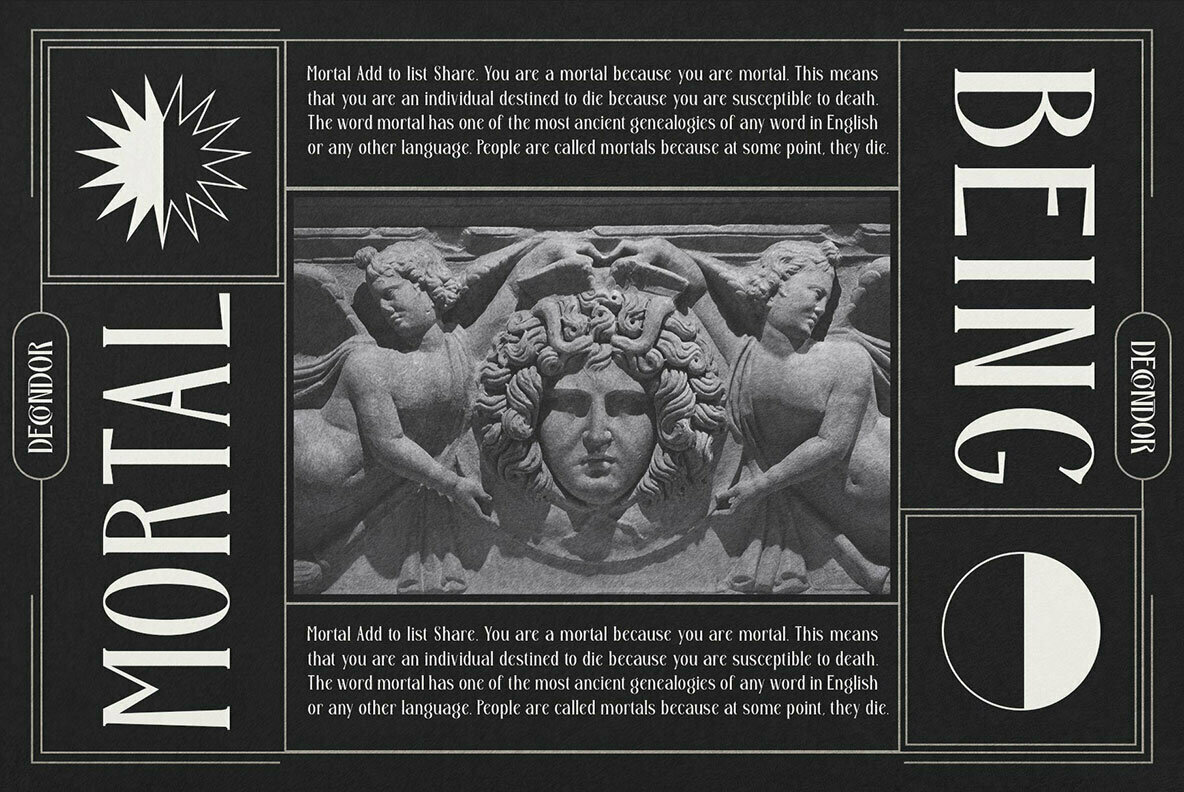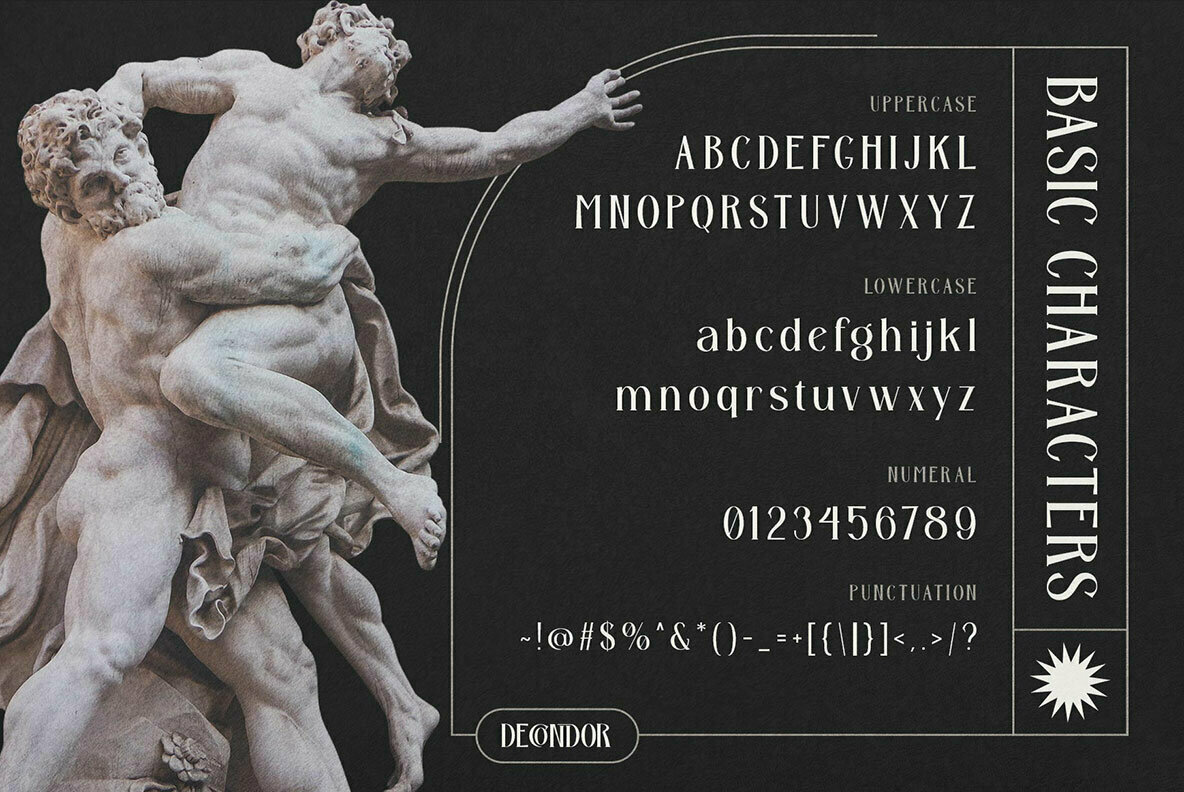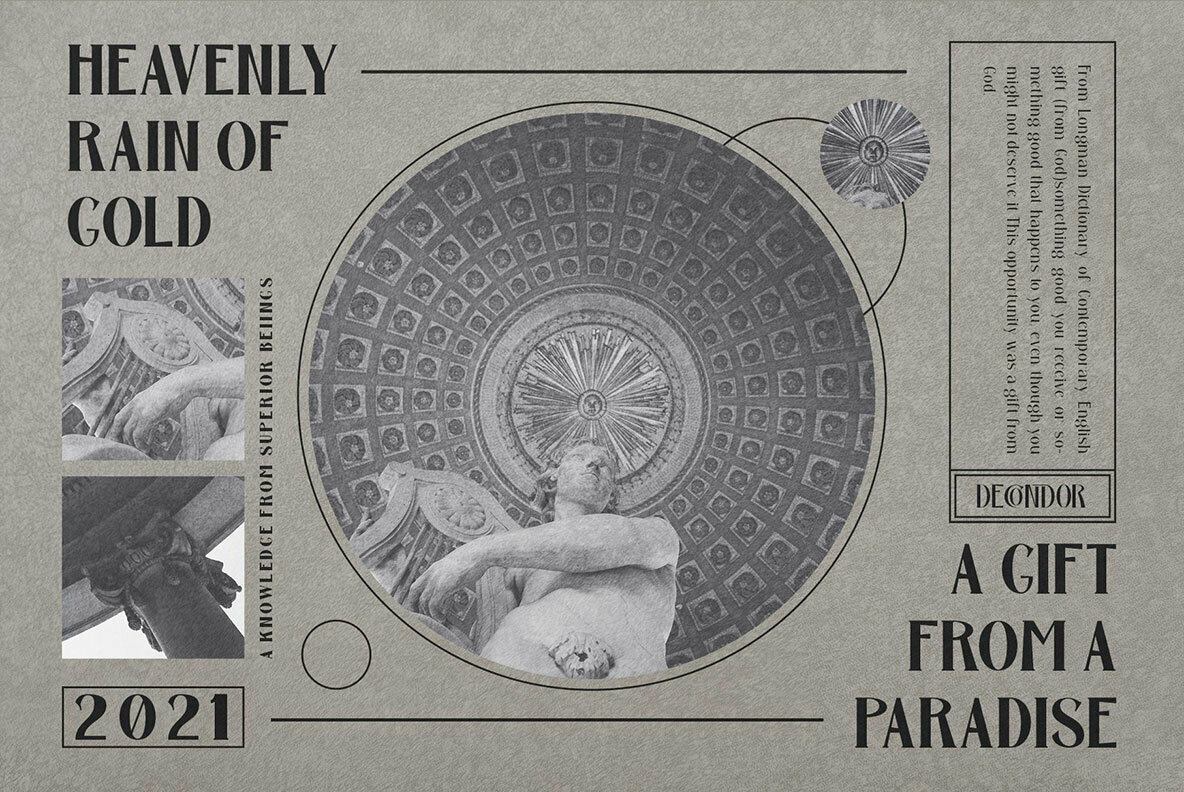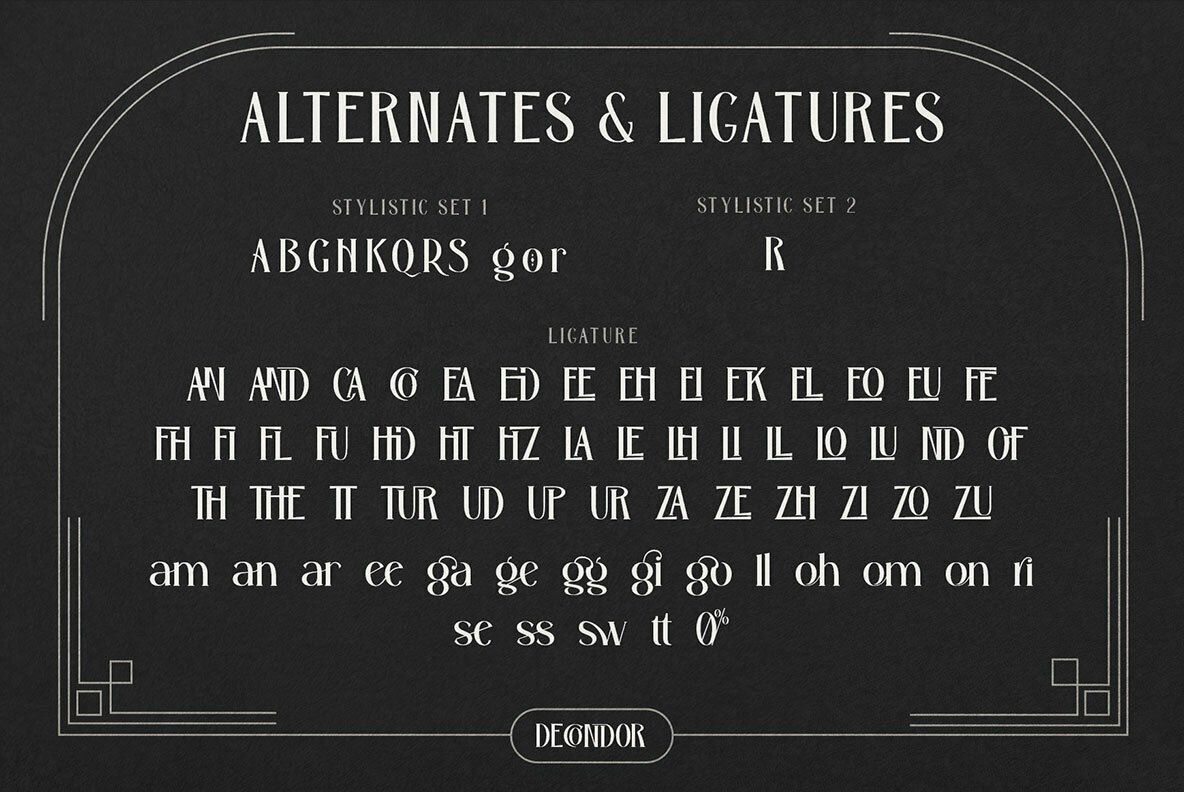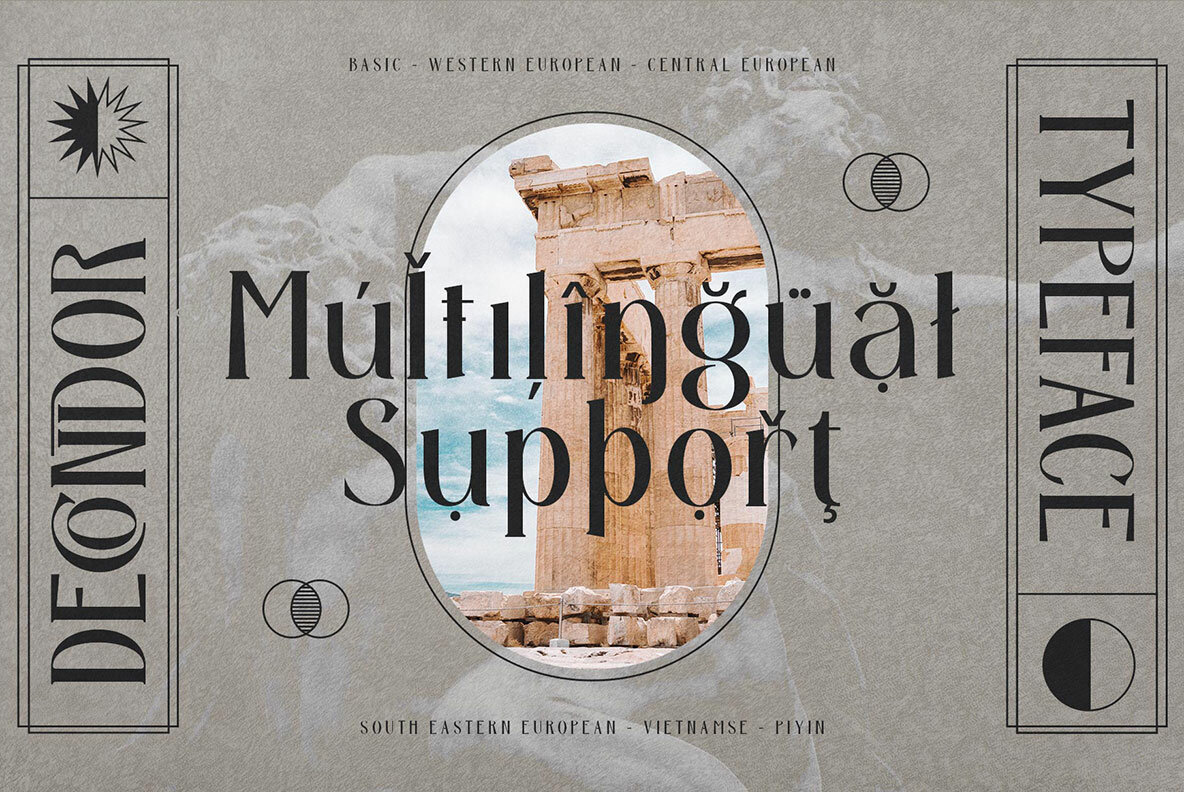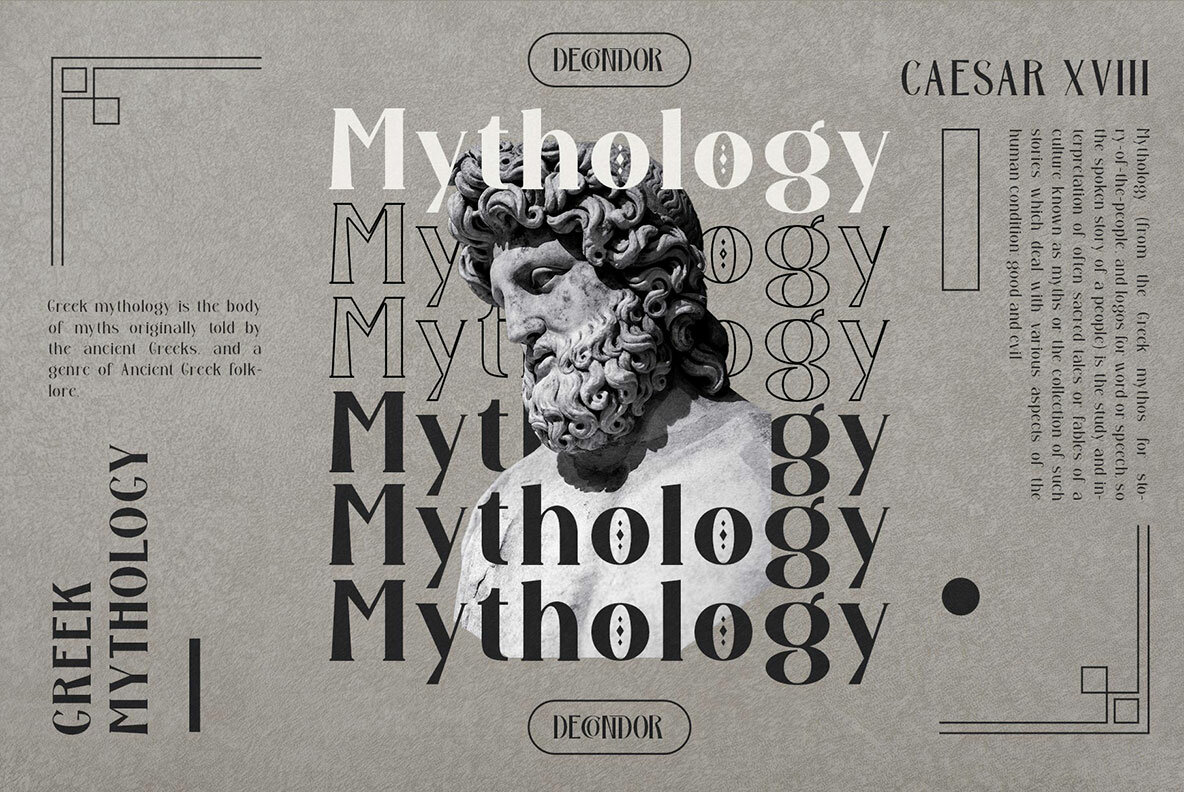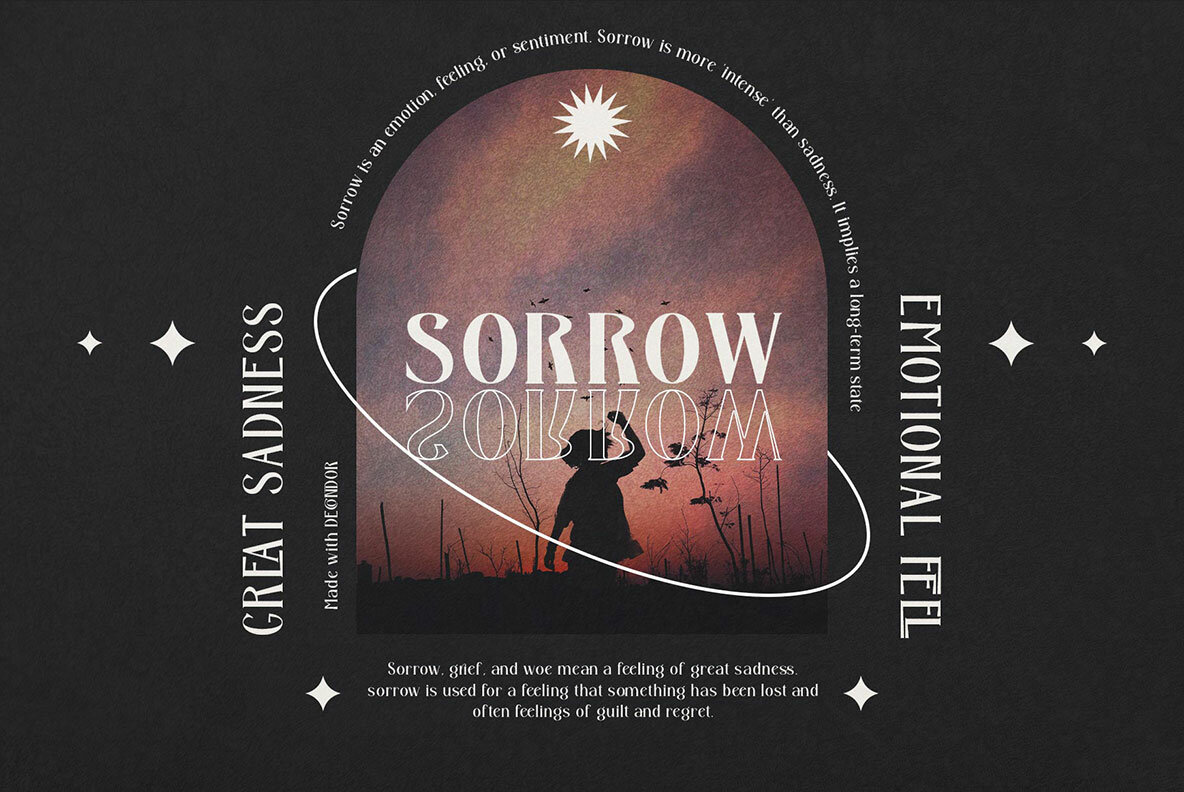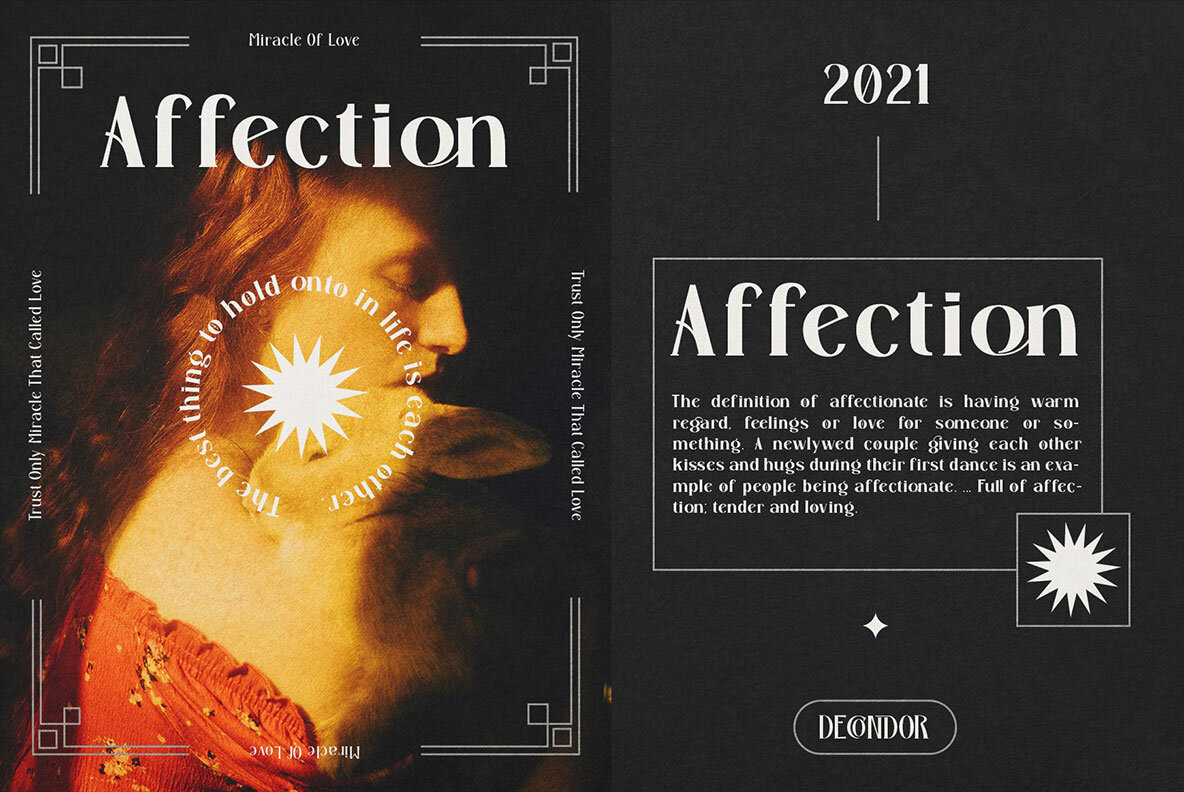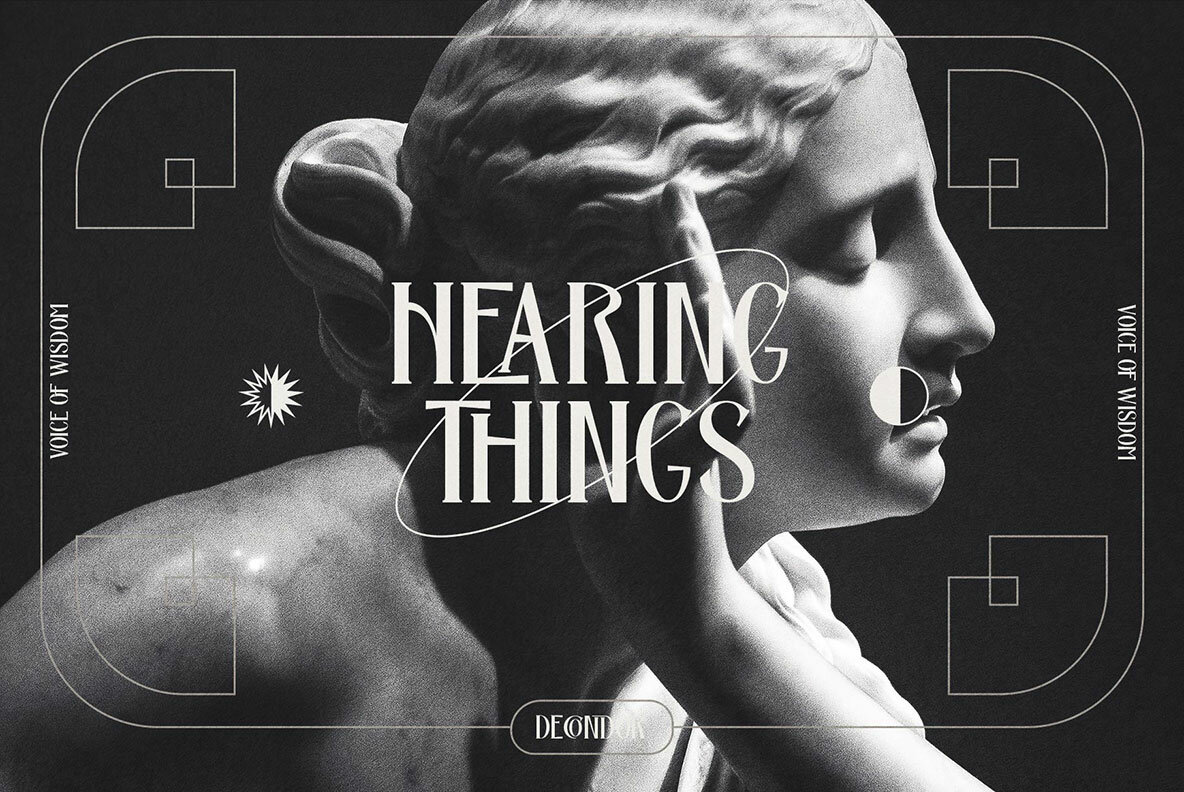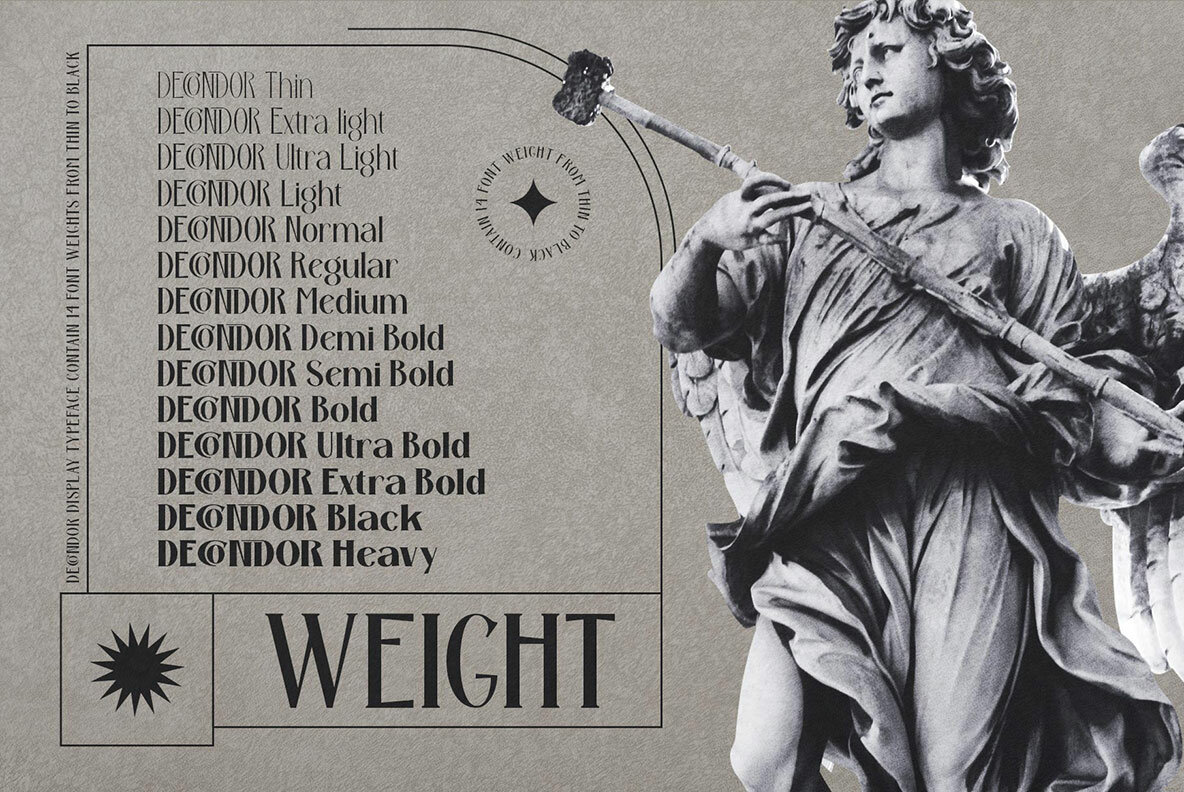
Decondor Font
Decondor by Alit Suarnegara offers an exquisite font family comprising 14 distinct styles, ranging from thin to heavy. This elegant collection promises to captivate audiences with its striking design, blending uniqueness with luxurious simplicity. The Decondor font family finds its place in projects that demand sophistication. This versatile typography encompasses a timeless charm, making it the perfect choice for elegant, luxury, and romantic themes, as well as fashion and classic royal concepts.Decondor: The Epitome of Elegance